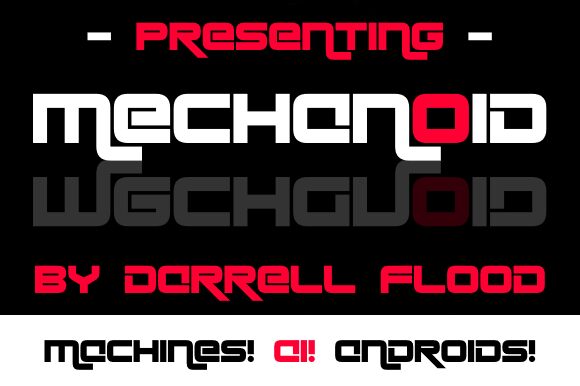
mechanoid Italic
Mechanoid Italic is a display font that brings a futuristic edge to any project. Designed by Hawtpixel, this semi-bold typeface is perfect for adding an extra pop of creativity to your designs. With its extra-expanded width, Mechanoid Italic demands attention and stands out from the crowd. Use it on posters, book covers, or even in digital campaigns for a bold and innovative look. Whether you're designing for technology or fashion, this font is versatile enough to fit any futuristic project. Give your work a touch of sci-fi with Mechanoid Italic!